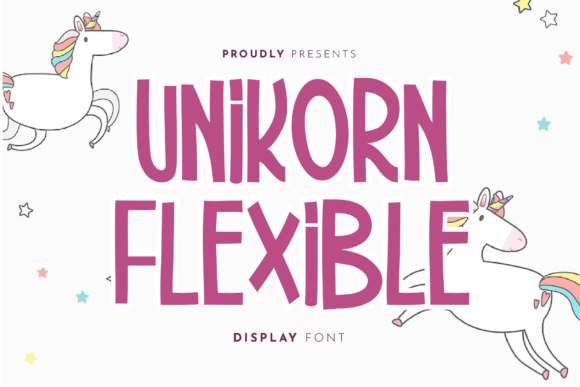
Dive into the world of captivating designs with "Unikorn Flexible Font", an enchanting display font that breathes life into your creative projects. Let your imagination flourish as you explore the depths of creativity with Unikorn, designed by Nerdstudio. This font is not just a tool; it's an artistic odyssey waiting to be discovered.
Unikorn's flexible style dances across your designs, adding a touch of magic to everything it graces. Its characters are like graceful dancers, each stroke flowing into the next with effortless elegance. Watch as Unikorn transforms your logos, branding, and social media presence into captivating masterpieces. It's the perfect companion for any project that demands a touch of whimsy and charm.
Step into a realm of endless possibilities with Unikorn. This font is as versatile as a chameleon, seamlessly adapting to a wide array of design endeavors. Unleash your creativity as you craft logos that command attention, social media posts that ignite engagement, and branding materials that inspire awe. With Unikorn, the possibilities are limitless.
Let Unikorn be your muse, guiding you through the labyrinth of artistic expression. Its enchanting curves and playful strokes will inspire you to create designs that resonate with your audience. Whether you're designing product packaging that captivates or headers that leave a lasting impression, Unikorn is your trusted companion.
Engage your customers with Unikorn's captivating charm. Its distinctive style adds a touch of exclusivity to your products, making them stand out amidst a sea of mediocrity. Use Unikorn to create handwritten quotes that touch hearts, merchandise that sparks conversations, and posters that ignite imaginations. The possibilities are endless when you unleash the power of Unikorn.
Experience the beauty and versatility of Unikorn Flexible Font today. Let your creativity soar as you unlock new horizons of design excellence. Its enchanting style will captivate your audience, leaving them with a lasting impression of your brand. Embrace Unikorn and embark on a journey of artistic exploration that will leave you breathless.